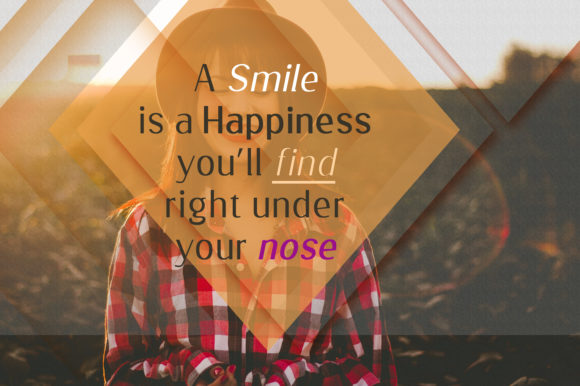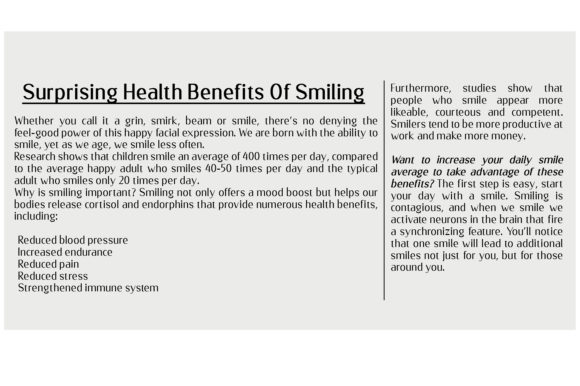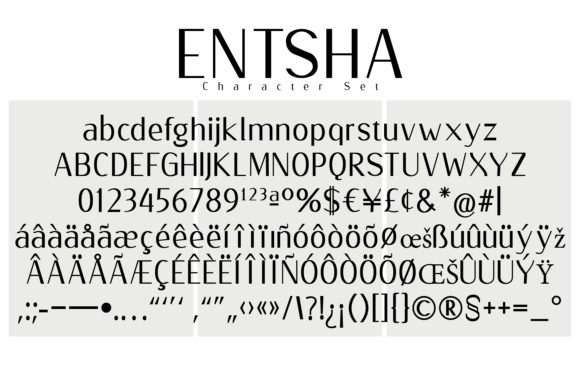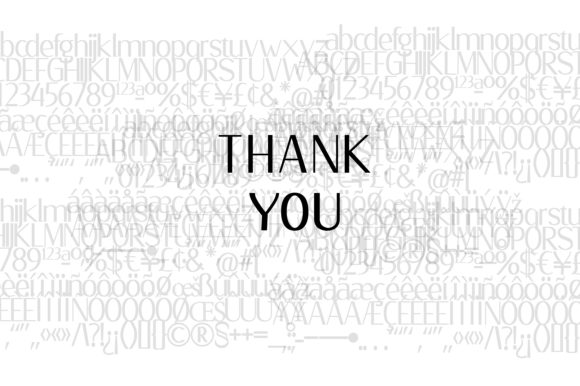
Introduction to Entsha Font
Entsha is a gorgeous and clean sans serif font that will add a bold feel to any design idea.
Get inspired by its timeless charm .
Key Features of Entsha Font
Why Choose Entsha Font?
Entsha Font offers exceptional quality and versatility, making it a valuable addition to your design toolkit. Whether you’re creating for personal projects or commercial use, Entsha Font delivers professional results.